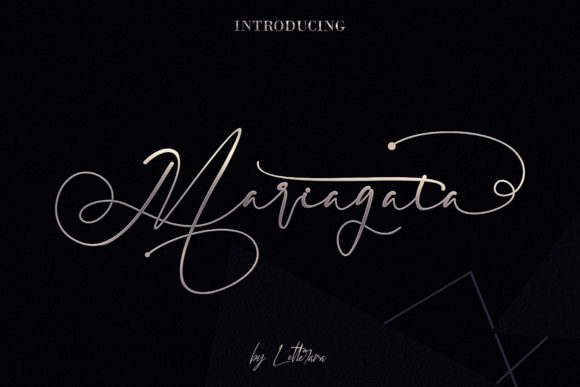
Immerse yourself in a world of elegance and grace with Mariagata Font, a captivating script typeface that exudes charm and allure. Inspired by the timeless beauty of handwritten letters, Mariagata invites you to add a touch of sophistication and individuality to your creative projects.
Crafted by the talented Thomasaradea, Mariagata possesses a unique lettering style that dances across the page, captivating the eyes with its delicate strokes and enchanting curves. Each character is a work of art, meticulously designed to convey a sense of warmth, personality, and charm.
This enchanting script family offers a versatile range of weights, from the delicate Hairline to the bold Black, enabling you to create designs that speak volumes. Whether you're a seasoned designer or just starting your creative journey, Mariagata empowers you to express yourself with boundless creativity.
Indulge in the versatility of Mariagata, a font that seamlessly adapts to a myriad of design applications. Its inherent charm lends itself beautifully to wedding invitations, greeting cards, branding projects, social media graphics, and any endeavor where a touch of elegance is desired.
With Mariagata, your designs will radiate a sense of authenticity and heartfelt connection. Its free-flowing lines mimic the natural rhythm of handwriting, creating a visual experience that resonates with audiences on a deeper level.
Embrace Mariagata's allure and witness the transformation of your creative projects. Let its enchanting characters dance across the page, weaving tales of love, joy, and imagination. Elevate your designs to new heights of beauty and captivate the hearts of your audience.